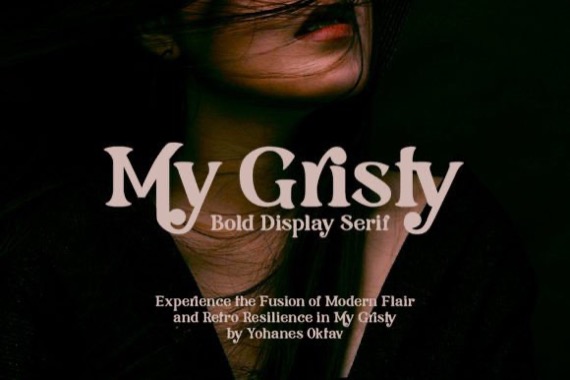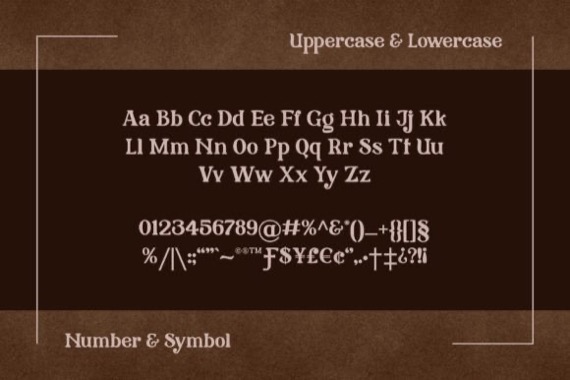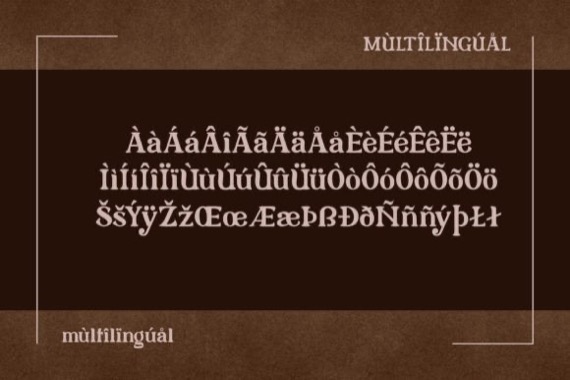
My Gristy is a classic and beautiful serif display font that was created and released by Yohanes Oktav. Catchy ligature upscaled your name into a unique logotype. My Gristy also available with basic Latin multilingual. Bring your business to a brighter future with the soul of the timelessness of the past era. This font is PUA encoded which means you can access all of the amazing glyphs and ligatures with ease!
My Gristy Display Serif Font
Designer, Publisher: Yohanes Oktav